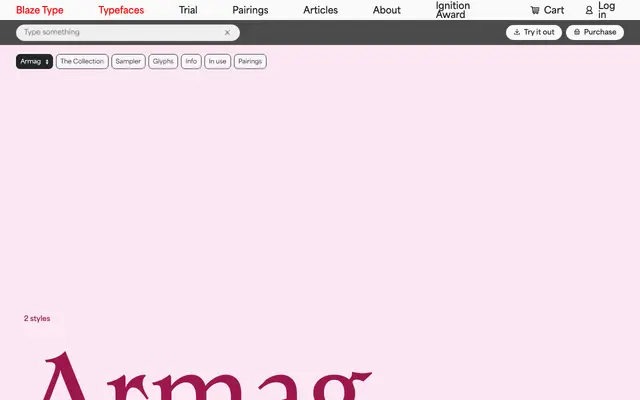
Armag
A two-style display serif by Matthieu Salvaggio drawing on early 20th-century hand lettering, with pointed aggressive terminals set against generous organic forms.
Armag comes in just two styles, Fury and Fury Italic, built around hand-drawn letterforms from the early 20th century. The combination of sharp, horn-like endings and open organic counters gives the face a faintly biblical or occult quality that lends itself to album art, editorial headers and brand identities with a dark or historical register. A wider family with additional weights, widths and alternates is noted as in development.
Inspired by early 20th century hand drawing with aggressive pointed terminals and organic shapes, Armag sits firmly in display serif territory, unsuited to running text but distinctive at large sizes.